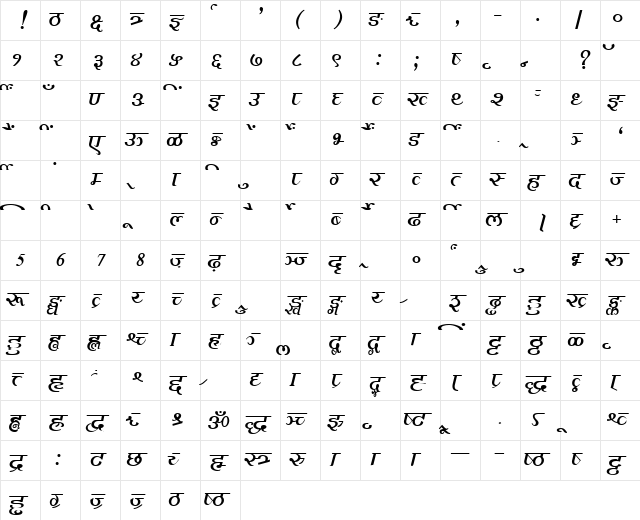
AkrutiDevDeepa Normal Font Preview
AkrutiDevDeepa Normal
AkrutiDevDeepa Normal Font Details
Design Context for AkrutiDevDeepa Typeface
AkrutiDevDeepa offers clean, dependable letterforms without strong stylistic allegiance, making it a practical choice for designers who need flexibility.